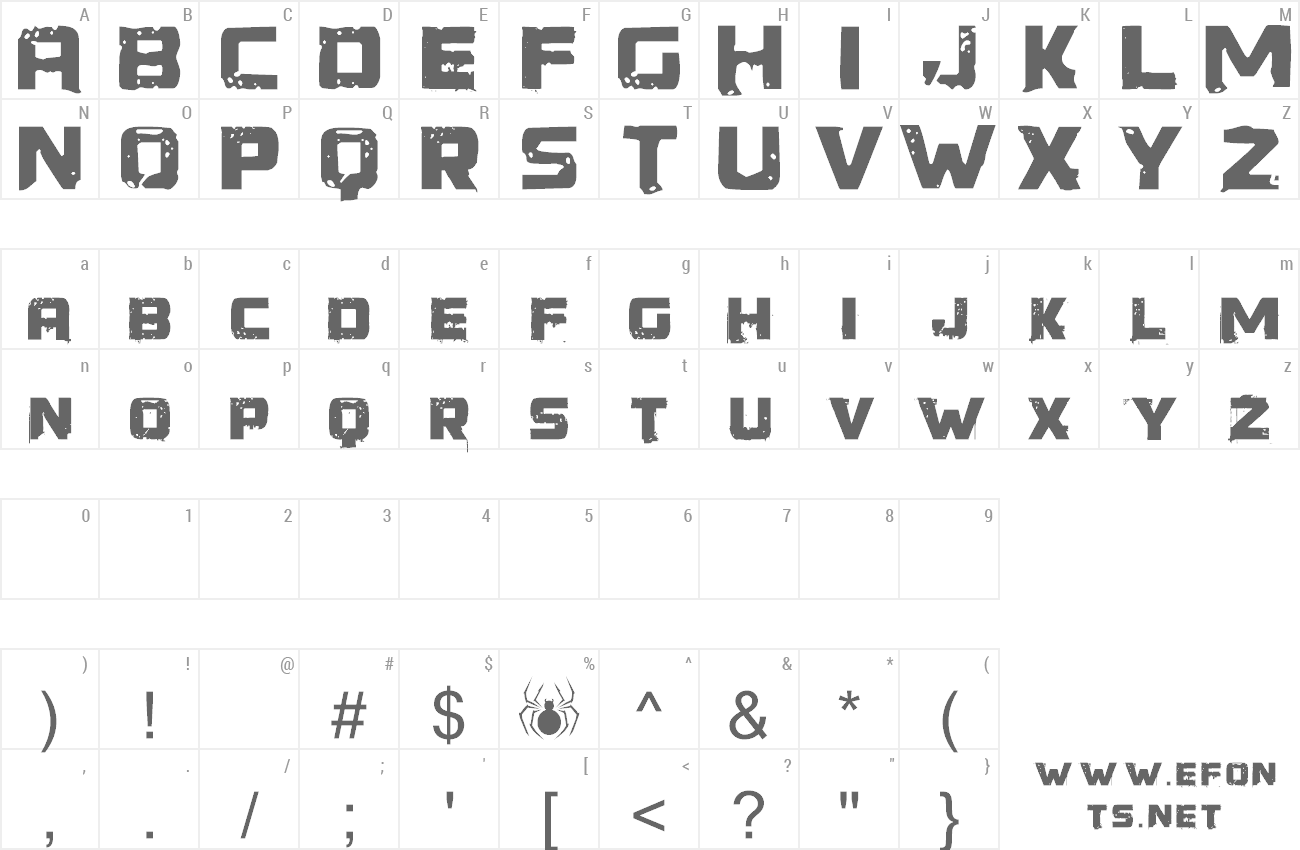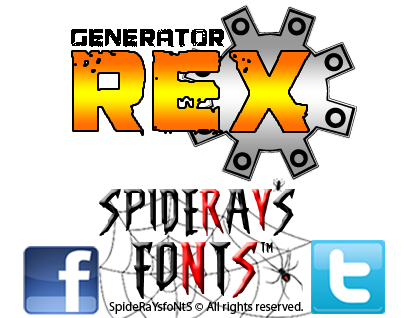
Preview and download Generator Rex Font. Created by SpideRaYsfoNtS in Fancy Destroy styles with Free for personal use license.
| Font name: | Generator Rex |
| Author: | SpideRaYsfoNtS |
| Created for the shear enjoyment of it loved making 8 toothed the HQ gear. My 7 year old son loves to draw the mechanical tools and gears from this cartoon character. He loves watching this character who can call upon many body enhancements he asked me to create this typeface so that he could use it on his drawings. |